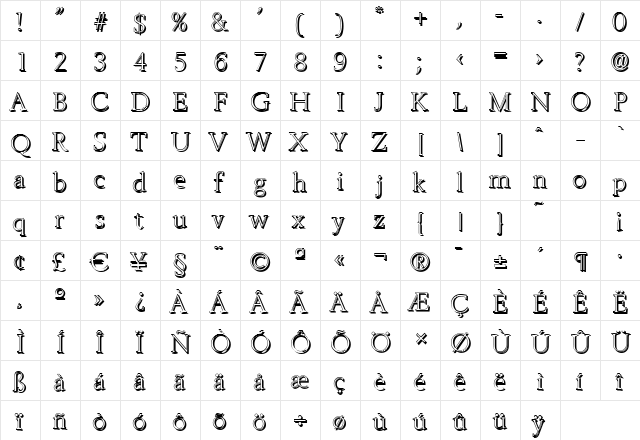
BrandonBeckerShadow-Xlight Regular Font Preview
BrandonBeckerShadow-Xlight Regular
Design Context for BrandonBeckerShadow-Xlight Typeface
BrandonBeckerShadow-Xlight brings ornamental detail and strong personality to headlines and identities, where visual impact matters more than quiet functionality. Its slender proportions lend an understated elegance to any composition.
Font Pairing: Pair with a clean neutral sans-serif for body copy to let BrandonBeckerShadow-Xlight's character lead without overwhelming the composition.
Pro Tip: Use BrandonBeckerShadow-Xlight exclusively at display sizes — it was designed to be seen, not read at length. Let a neutral companion handle body copy.